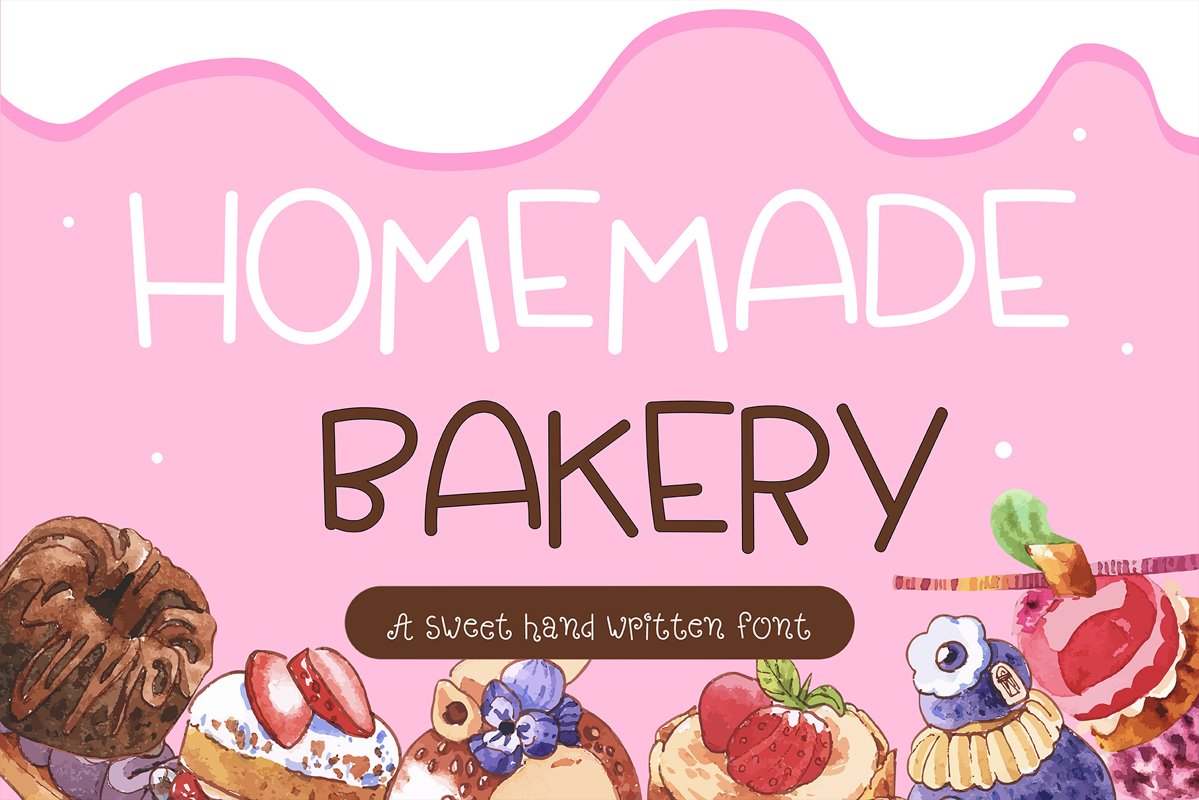
Homemade Bakery Handwritten Baby Font
Handwritten Kawaii style. English
language only
Are you looking for cute Handwritten
font for your project? Then you have come the right land!!
This Font is perfect for kid greeting
card, Print t shirt, fashion artworks or just play around.
Festival like Valentine's Day, Kid's Party,
wedding!!